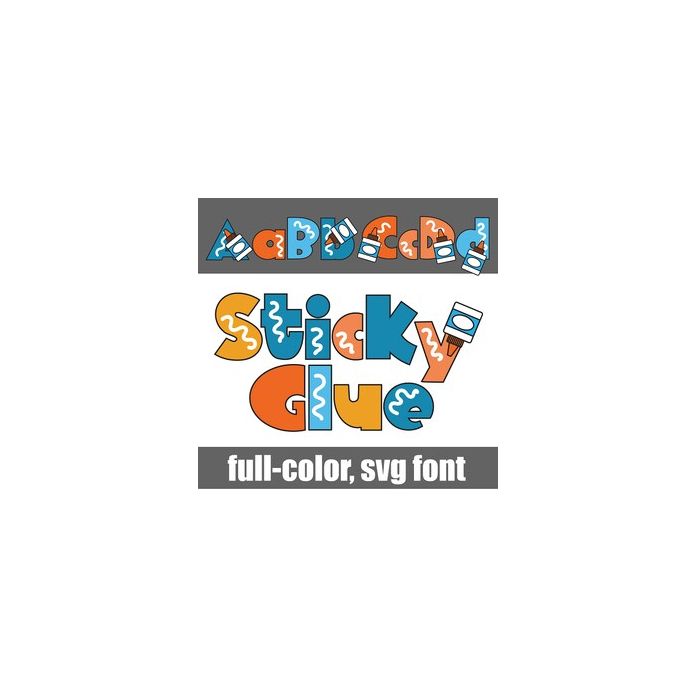
This full-color font features white glue and a blue, yellow, and orange color palette. There is an alt case w/ additional colors you can access through your system or Silhouette's glyph map.